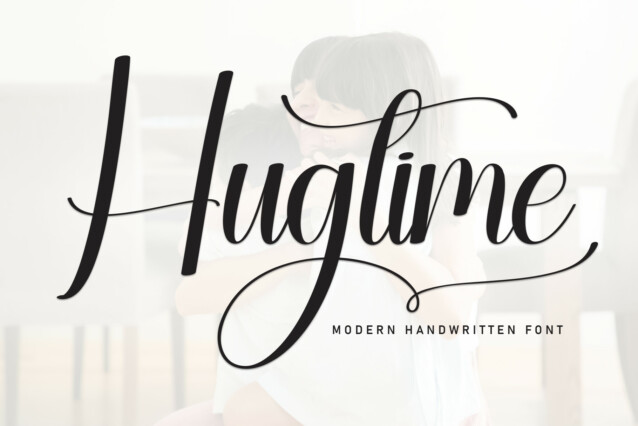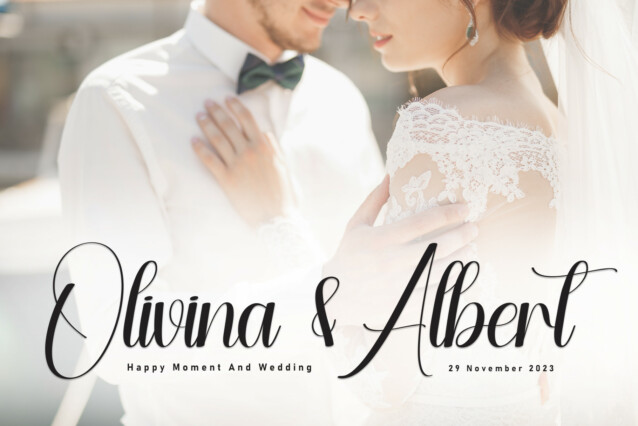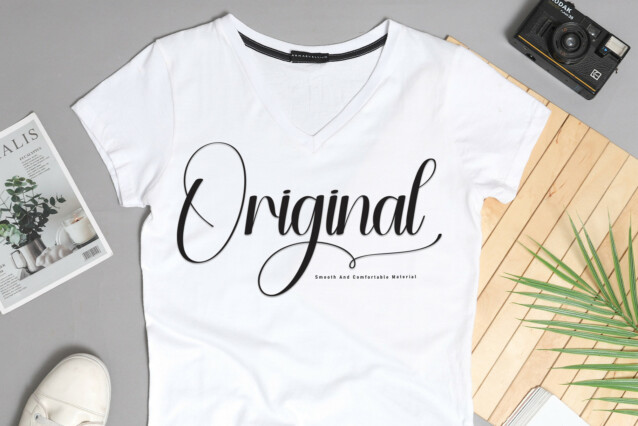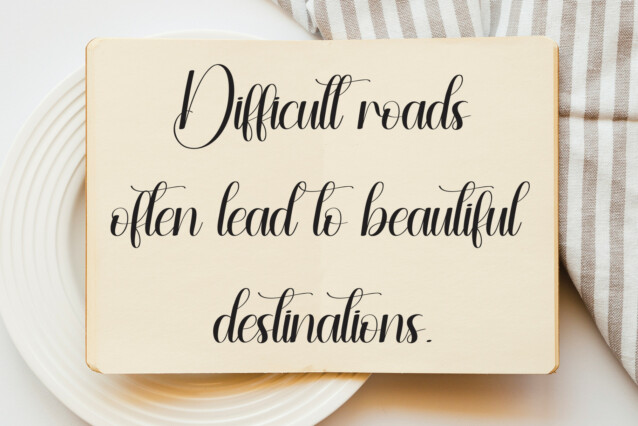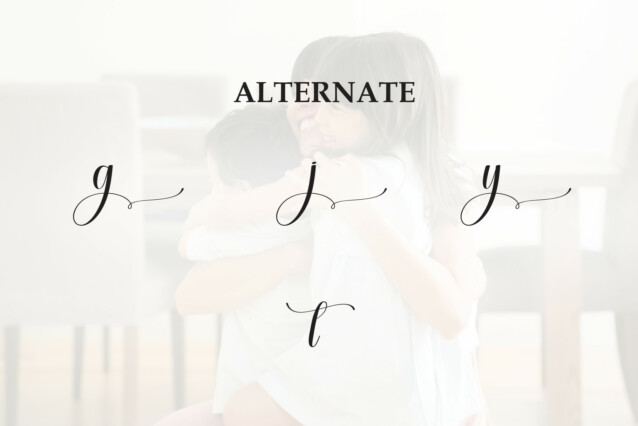
Hugtime Script Font
Hugtime Script Font is an adorable handwritten font. No matter the topic, this font will be an incredible asset to your fonts’ library, as it has the potential to elevate any creation.